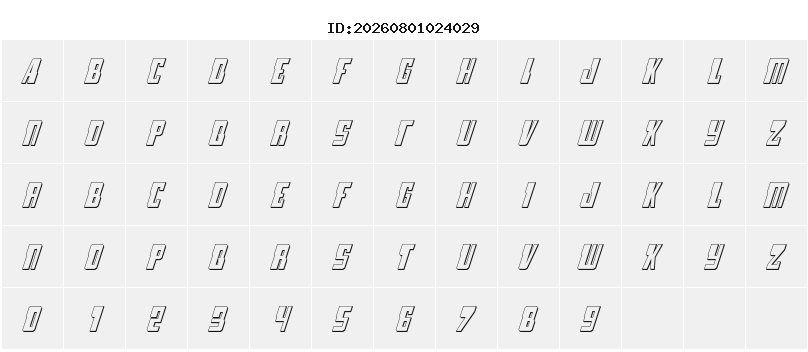
• Font Name: Lamprey 3D Italic
About Lamprey 3D Italic.ttf
Lamprey 3D Italic.ttf is a modern, elegant sans-serif font designed for ultimate readability and visual harmony. Perfect for branding, headlines, web design, and print materials.